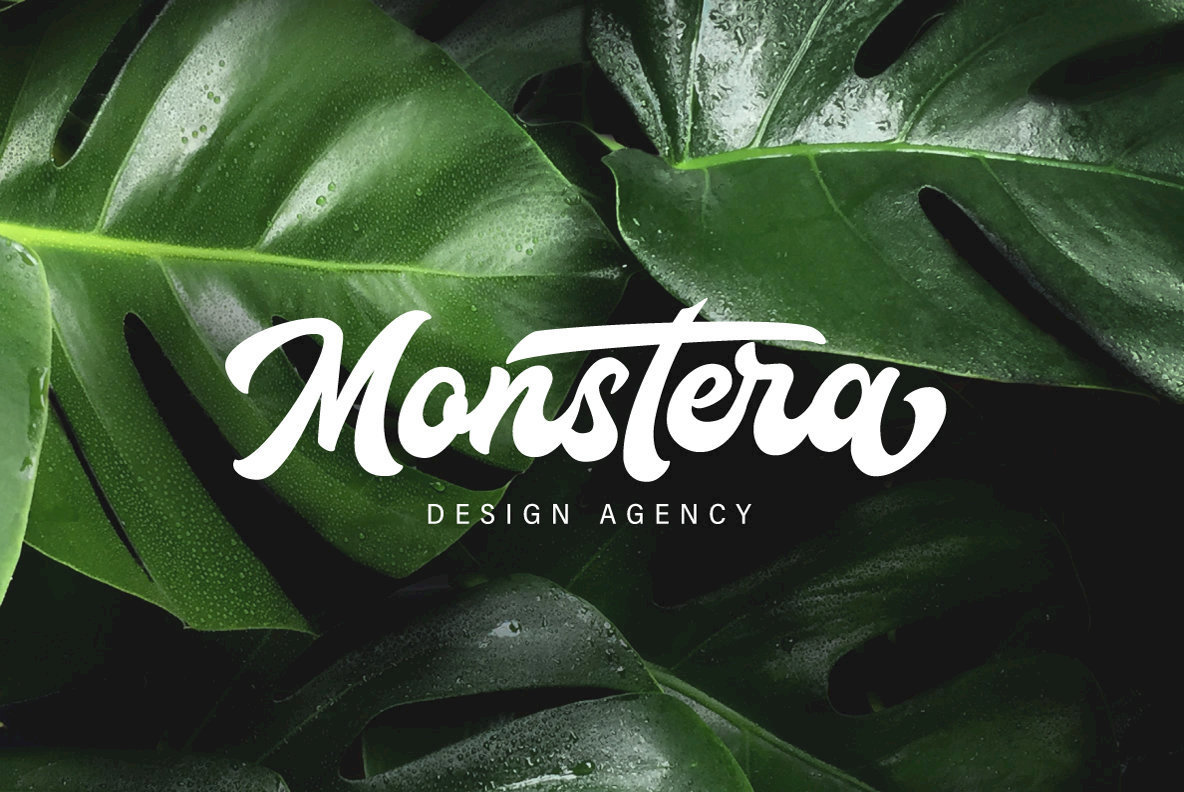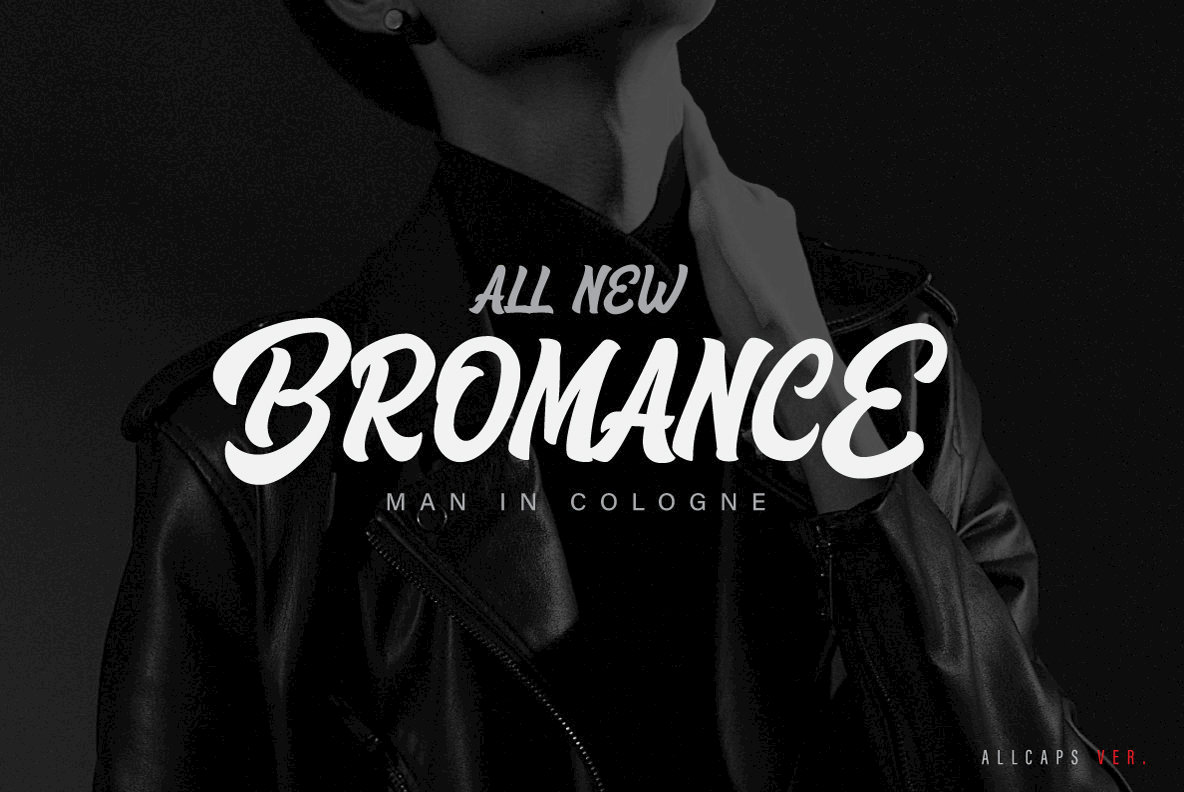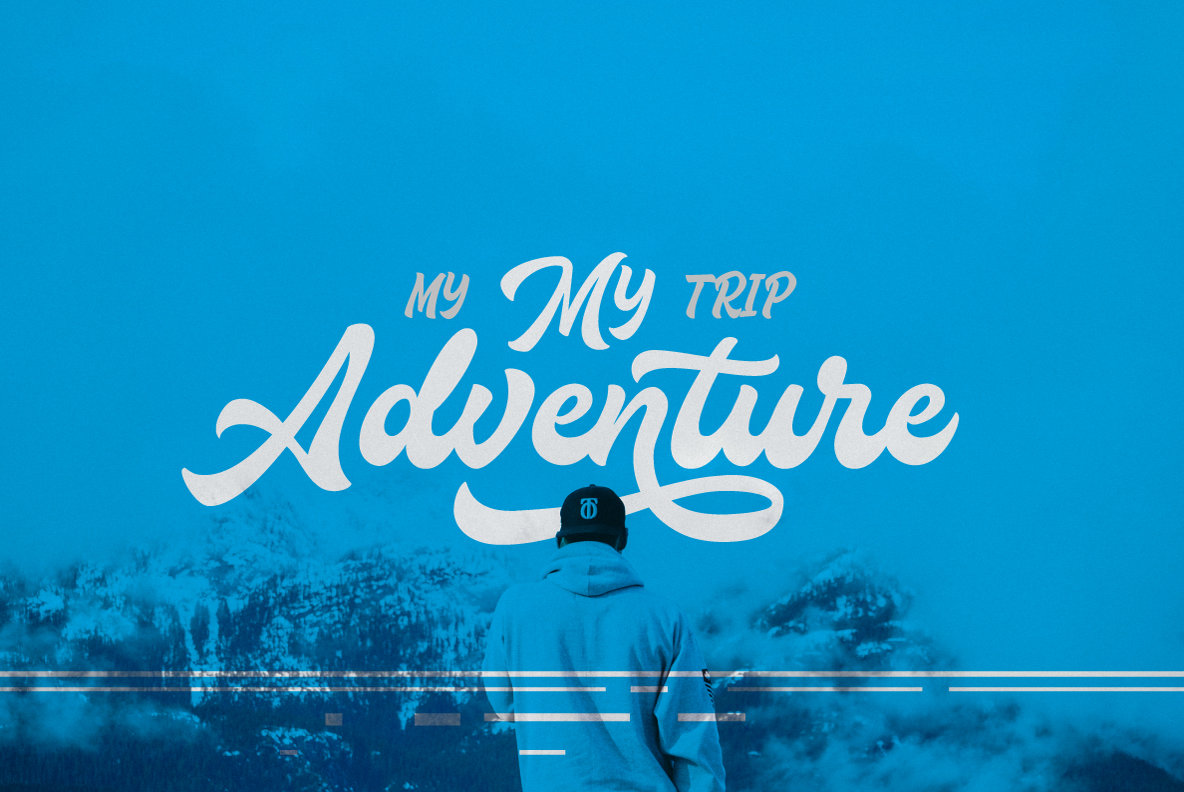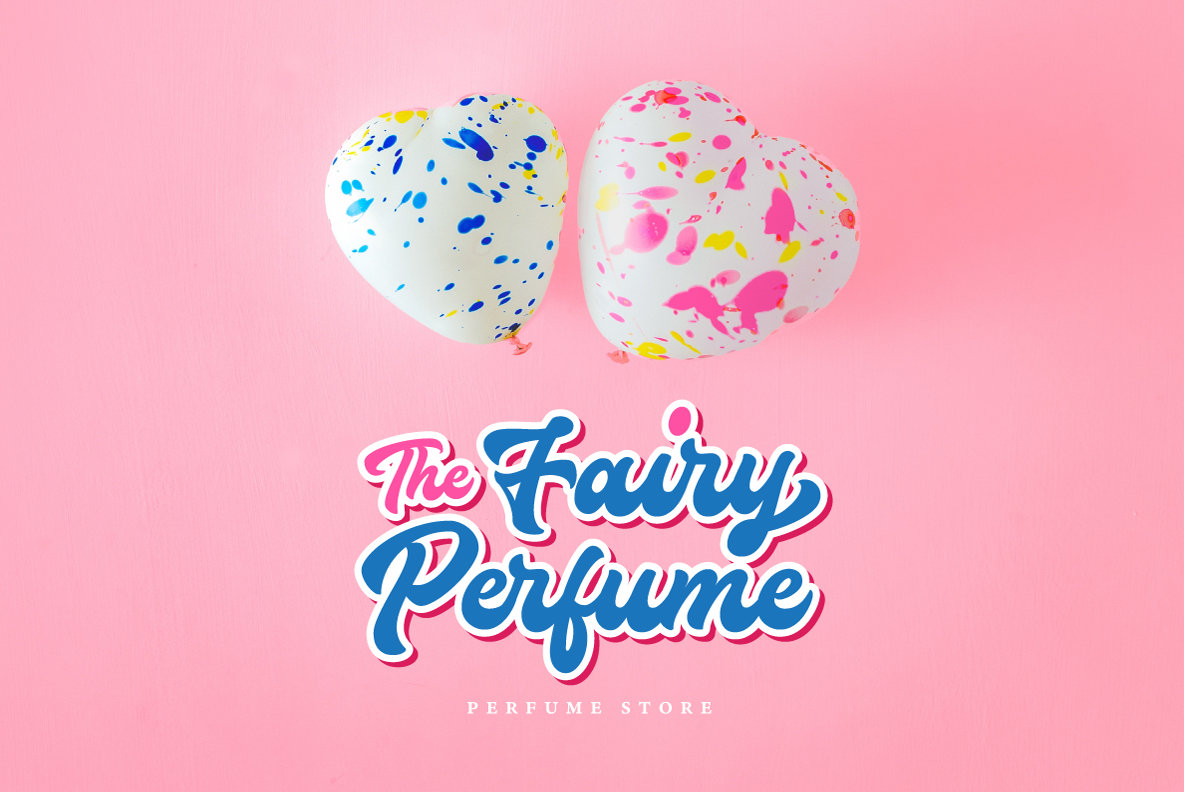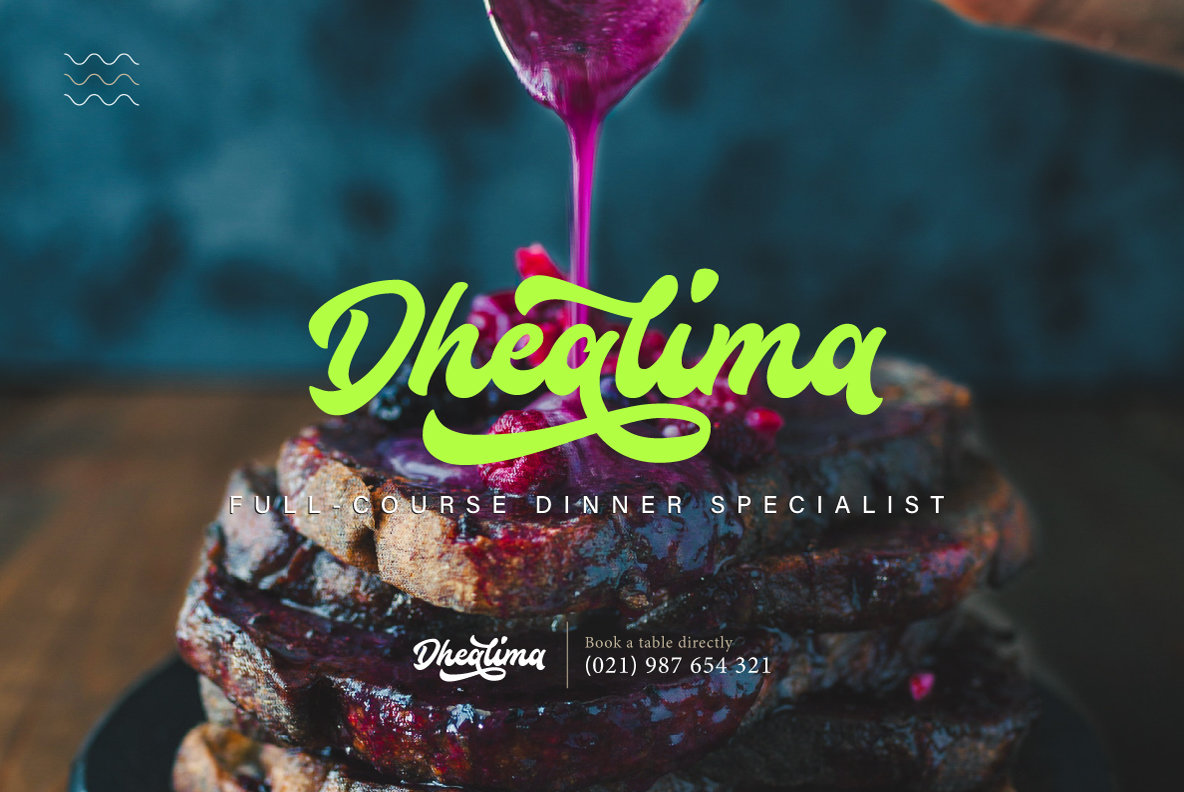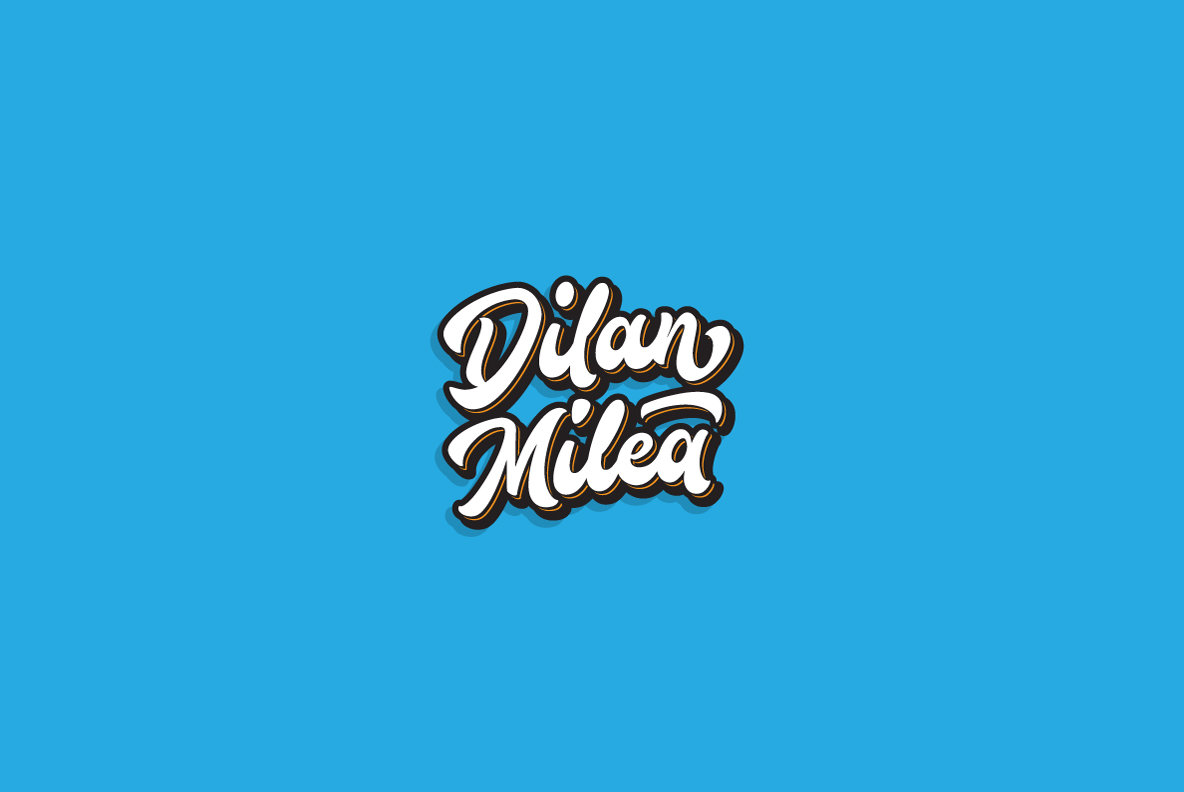
Houstander Font
Houstander
Houstander Allcaps
For designers seeking a blend of elegance and contemporary flair, Houstander offers a versatile solution. This font duo perfectly suits a variety of design applications, particularly hand-lettered logos and standout headlines. Its modern aesthetic adds a unique touch, making it an effective choice for capturing attention in both digital and print media.Houstander: The Ideal Font Duo for Modern Design